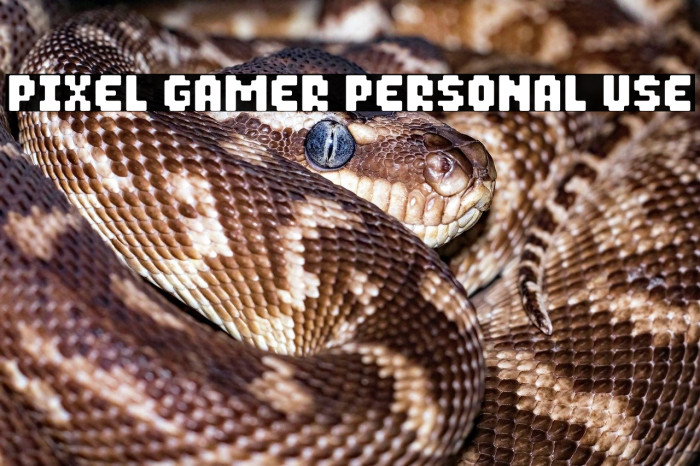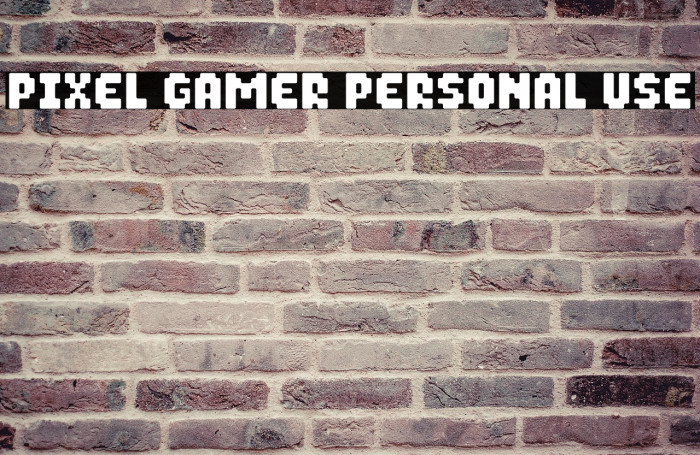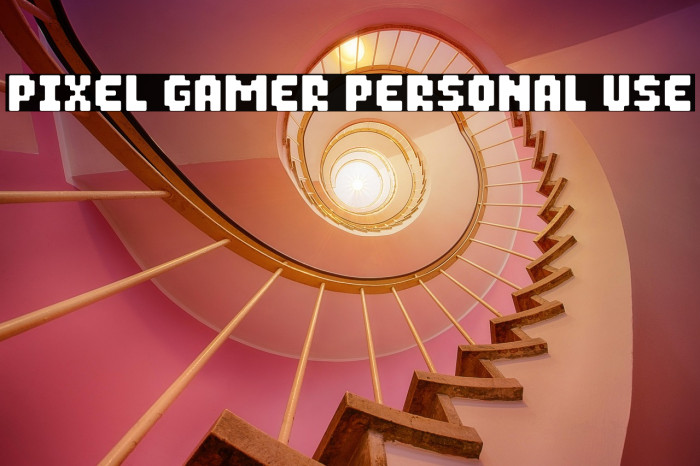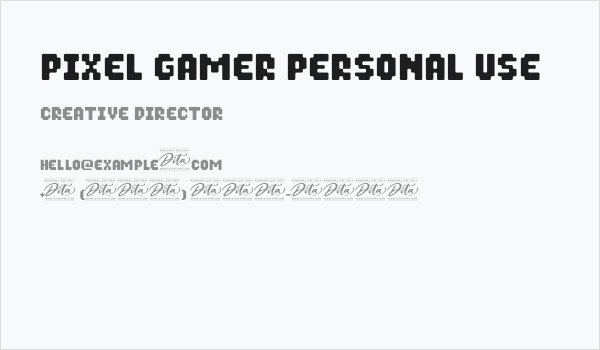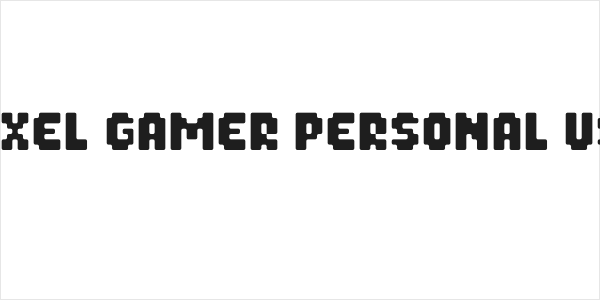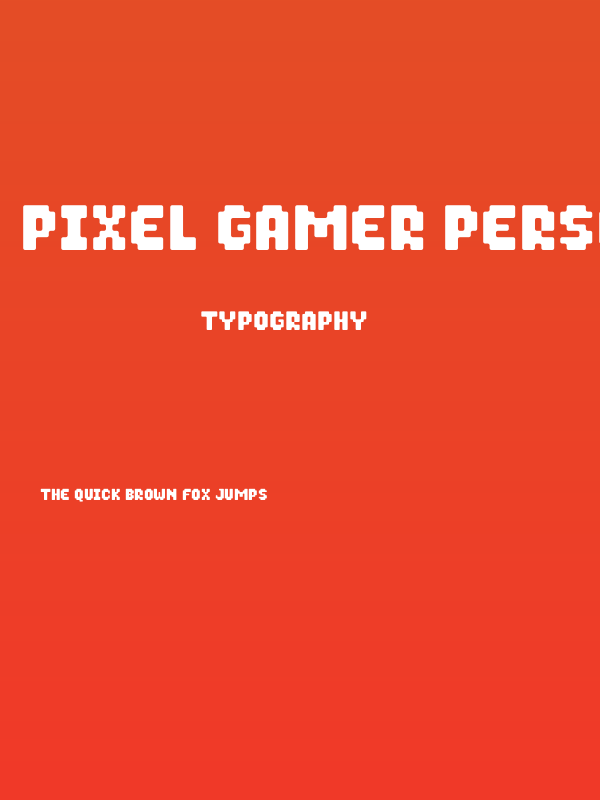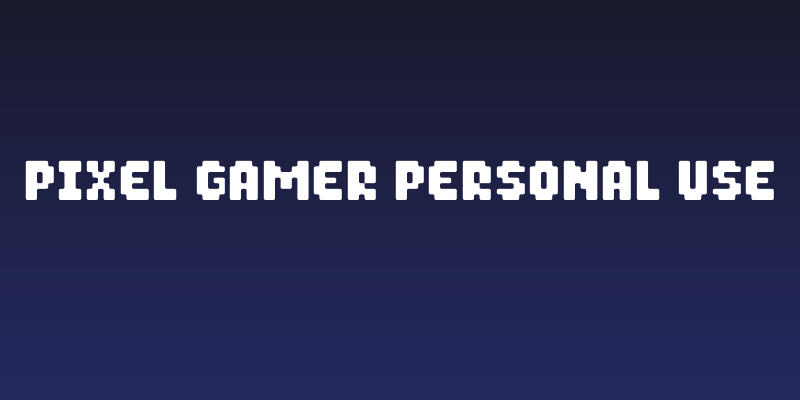
Pixel Gamer Personal use Font
Pixel Gamer Personal use Description
This font features a bold, pixelated design reminiscent of classic video game graphics. Each character is constructed with a blocky, geometric style that emphasizes a retro, digital aesthetic. The uppercase and lowercase letters maintain a consistent height, contributing to a uniform appearance. The numbers and special characters follow the same pixelated theme, ensuring a cohesive look across all text elements. This font's nostalgic appeal is ideal for projects seeking to evoke the charm of early computer graphics.
| Proposed Projects | Ideal for video game titles, retro-themed posters, digital art projects, and any design requiring a nostalgic, pixelated look. |